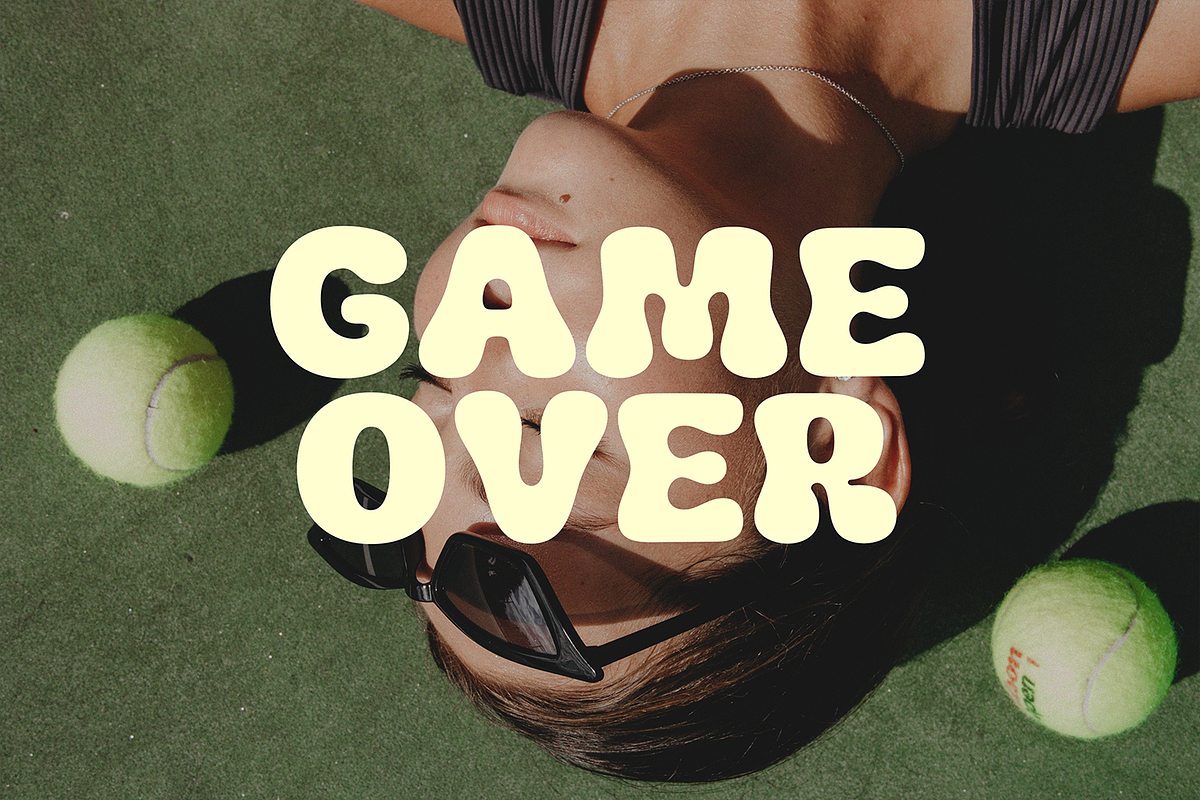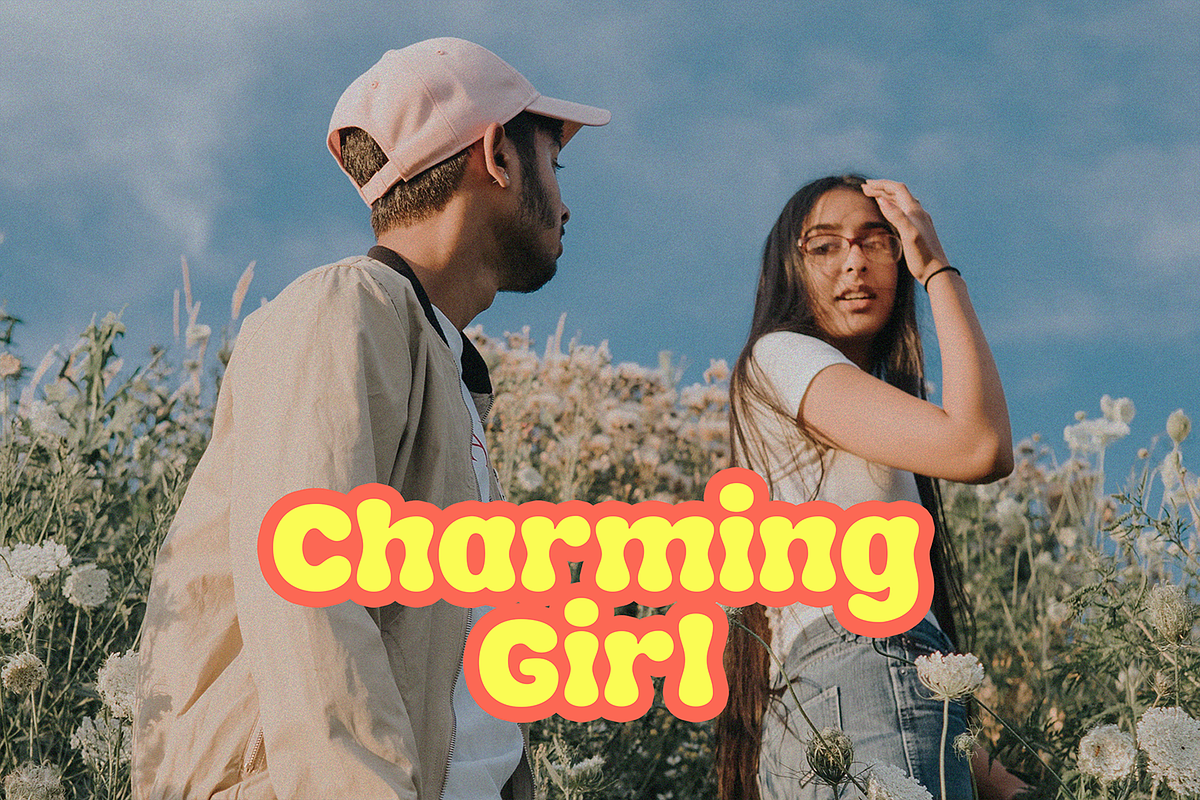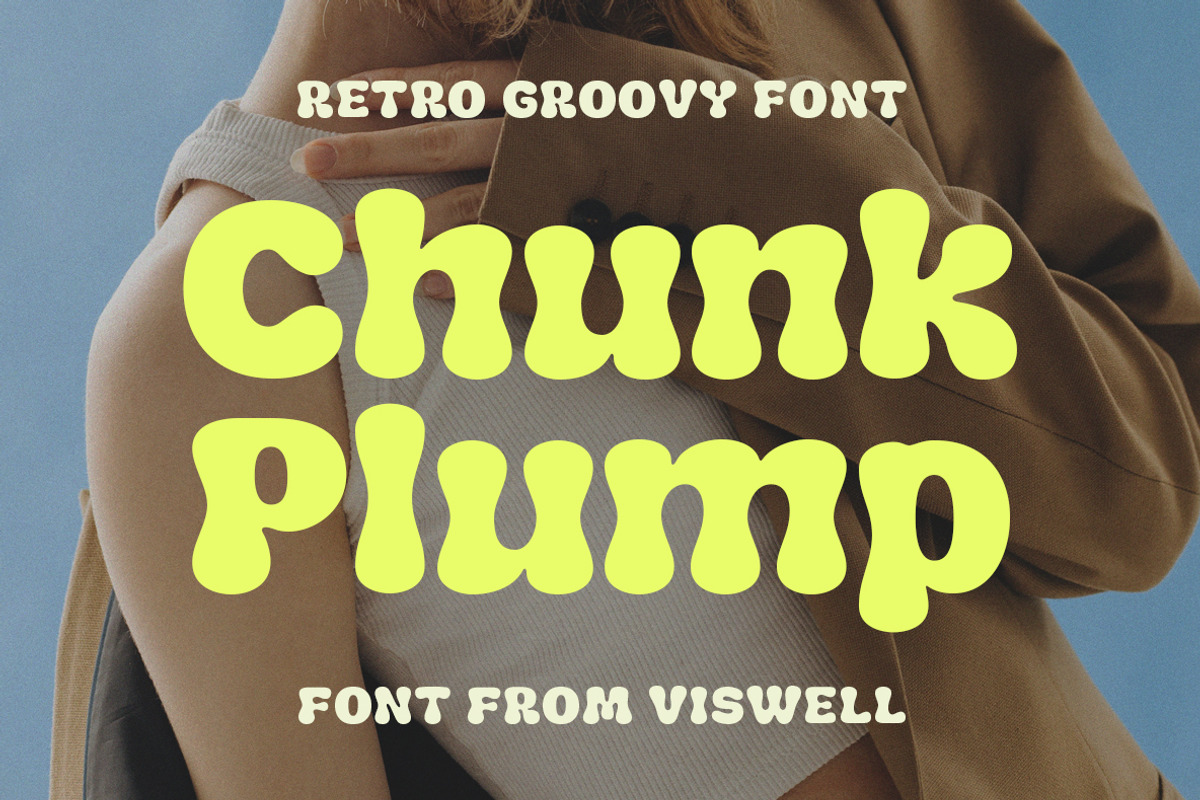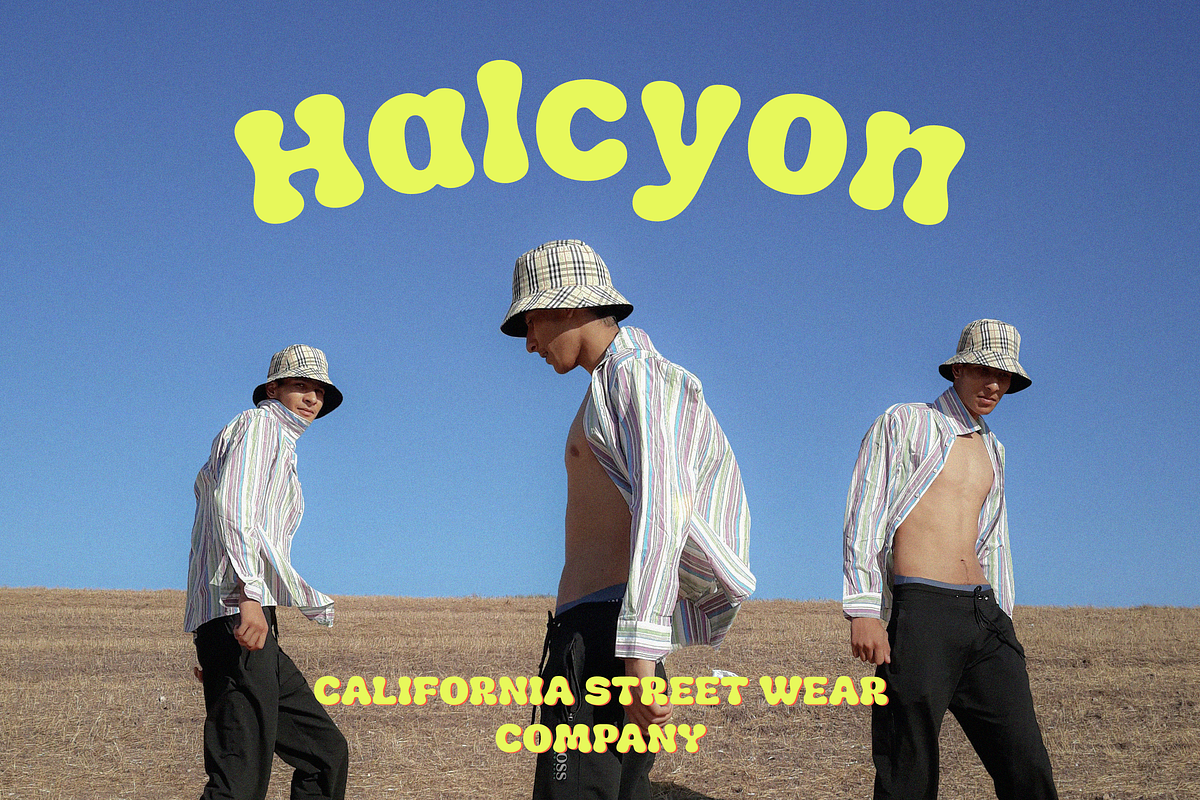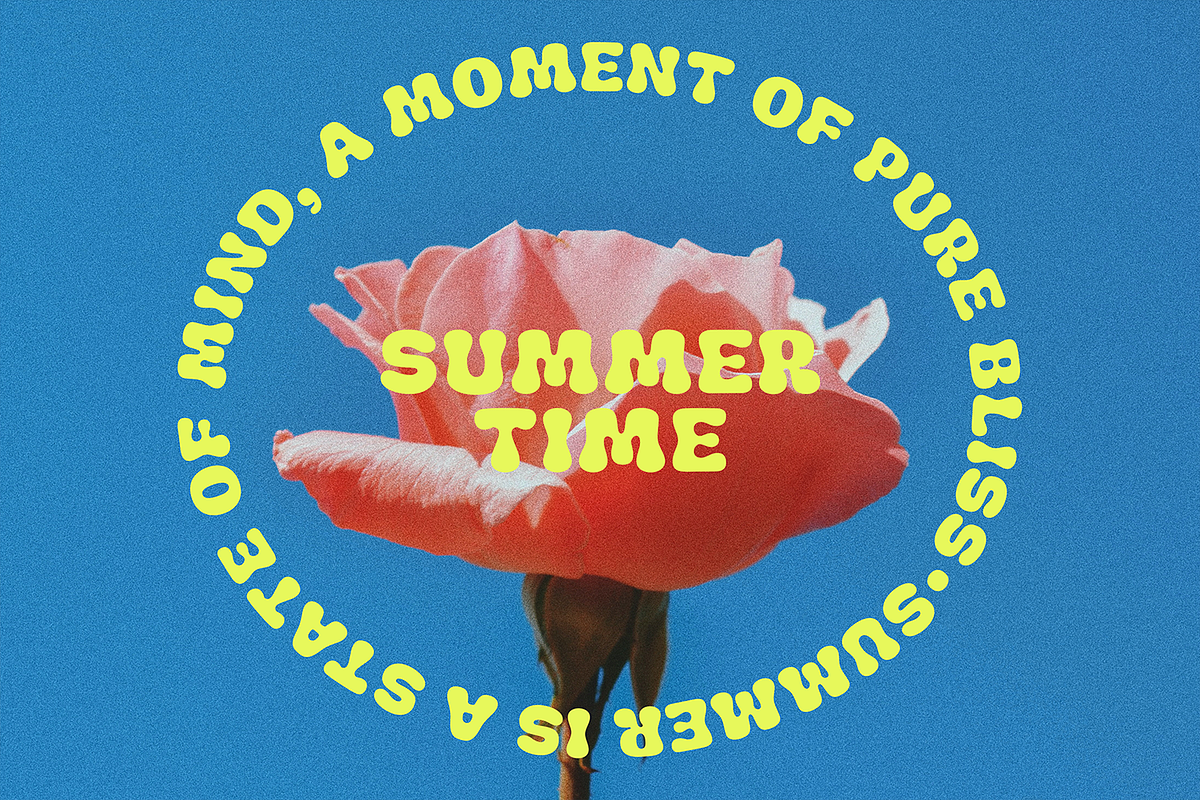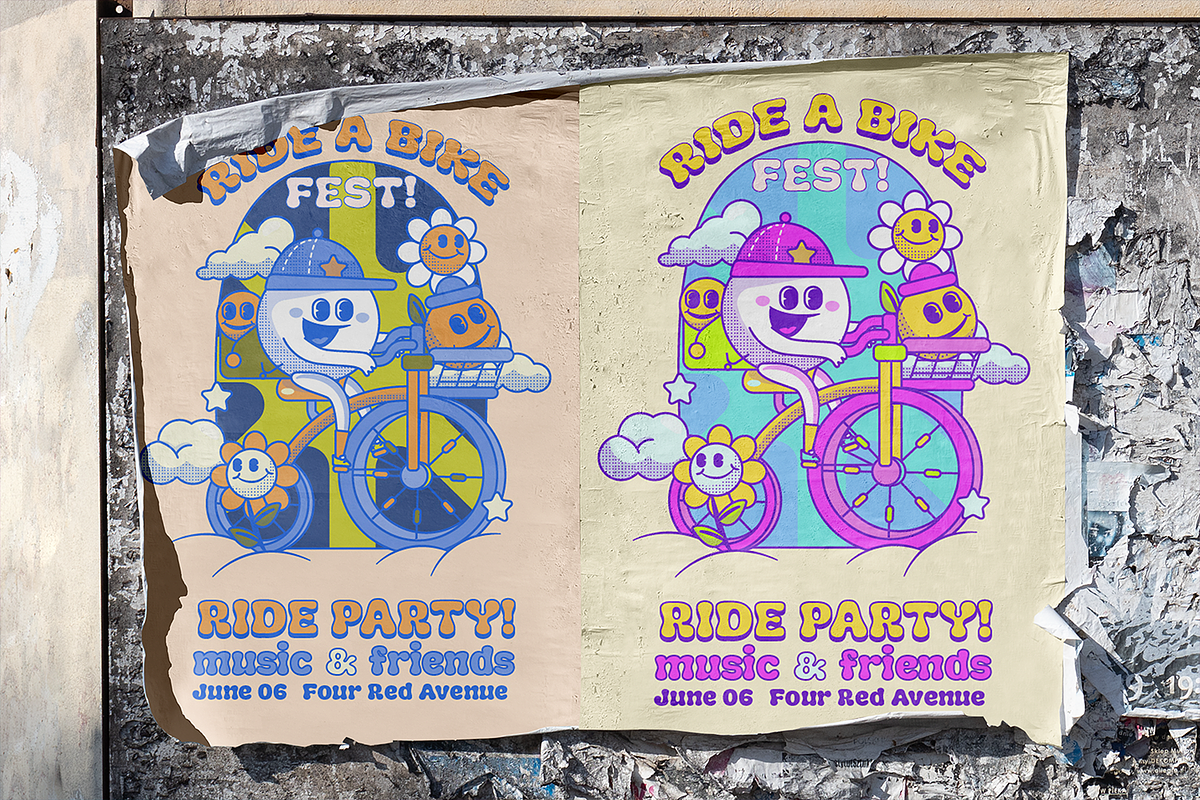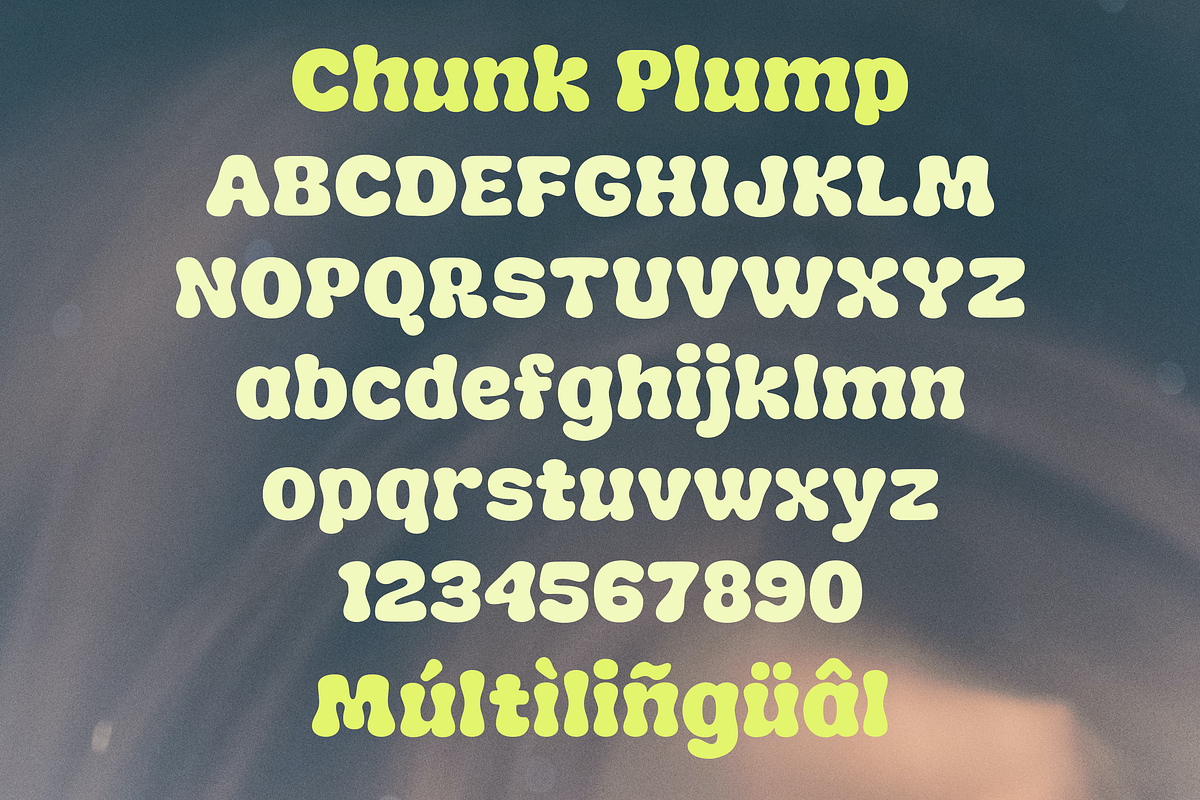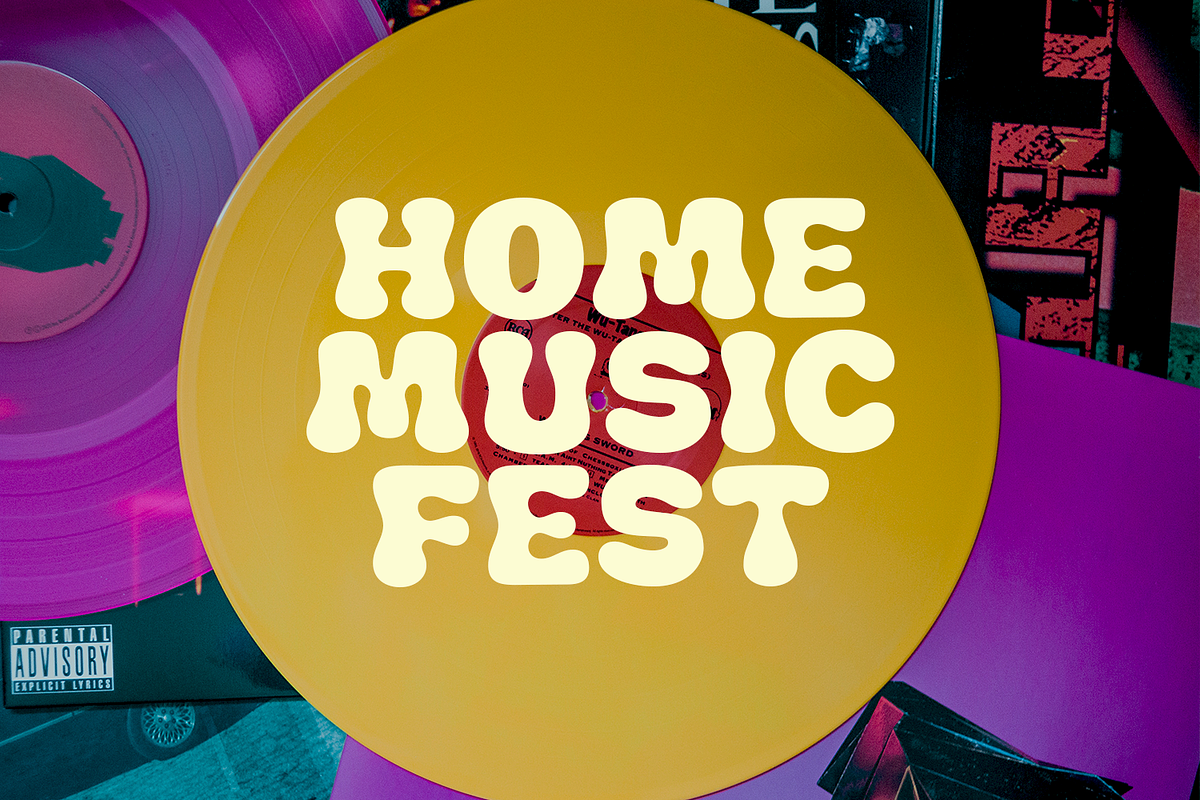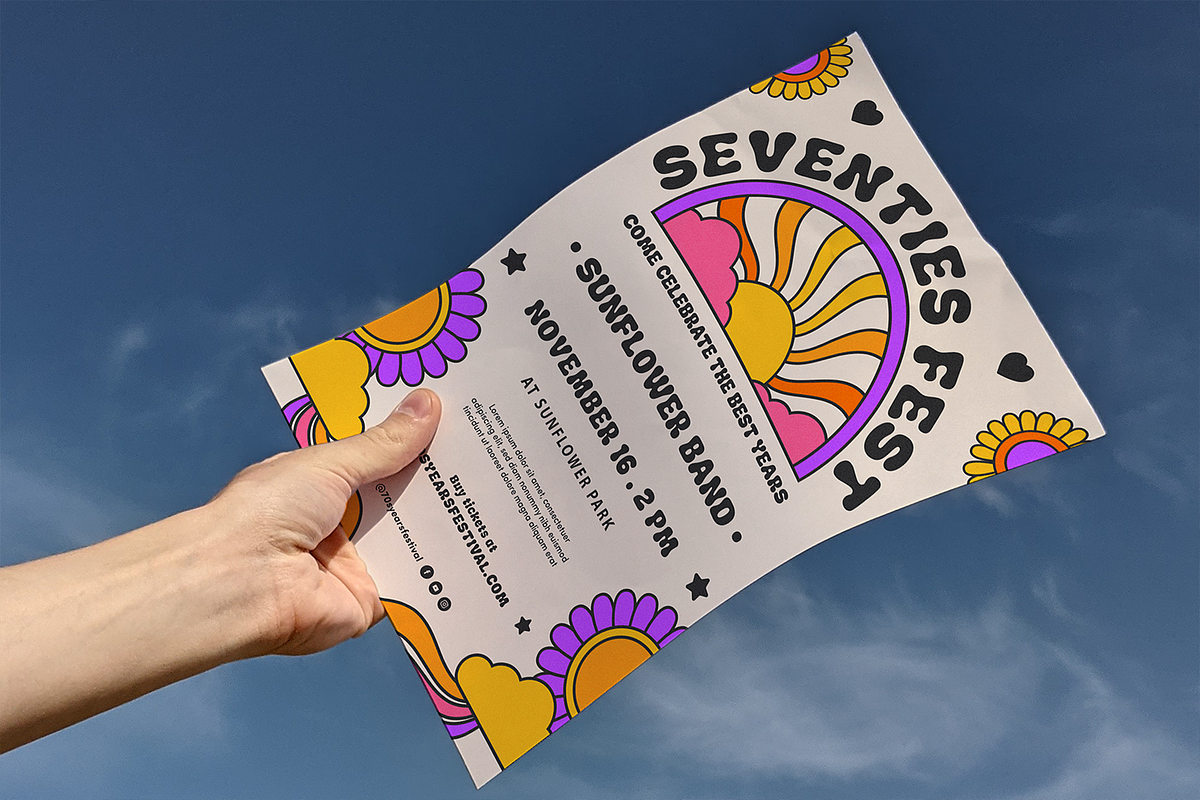
Chunk Plump - Groovy Chunky Font
Introducing Chunk Plump a retro display font that combines chunky and rounded shapes. Bold and playful, it captures the nostalgic charm of the past with a contemporary twist. Perfect for headlines and titles, it adds authenticity and character to any design, infusing a sense of warmth and inviting energy. Get ready to make a lasting impression with Chunk Plump